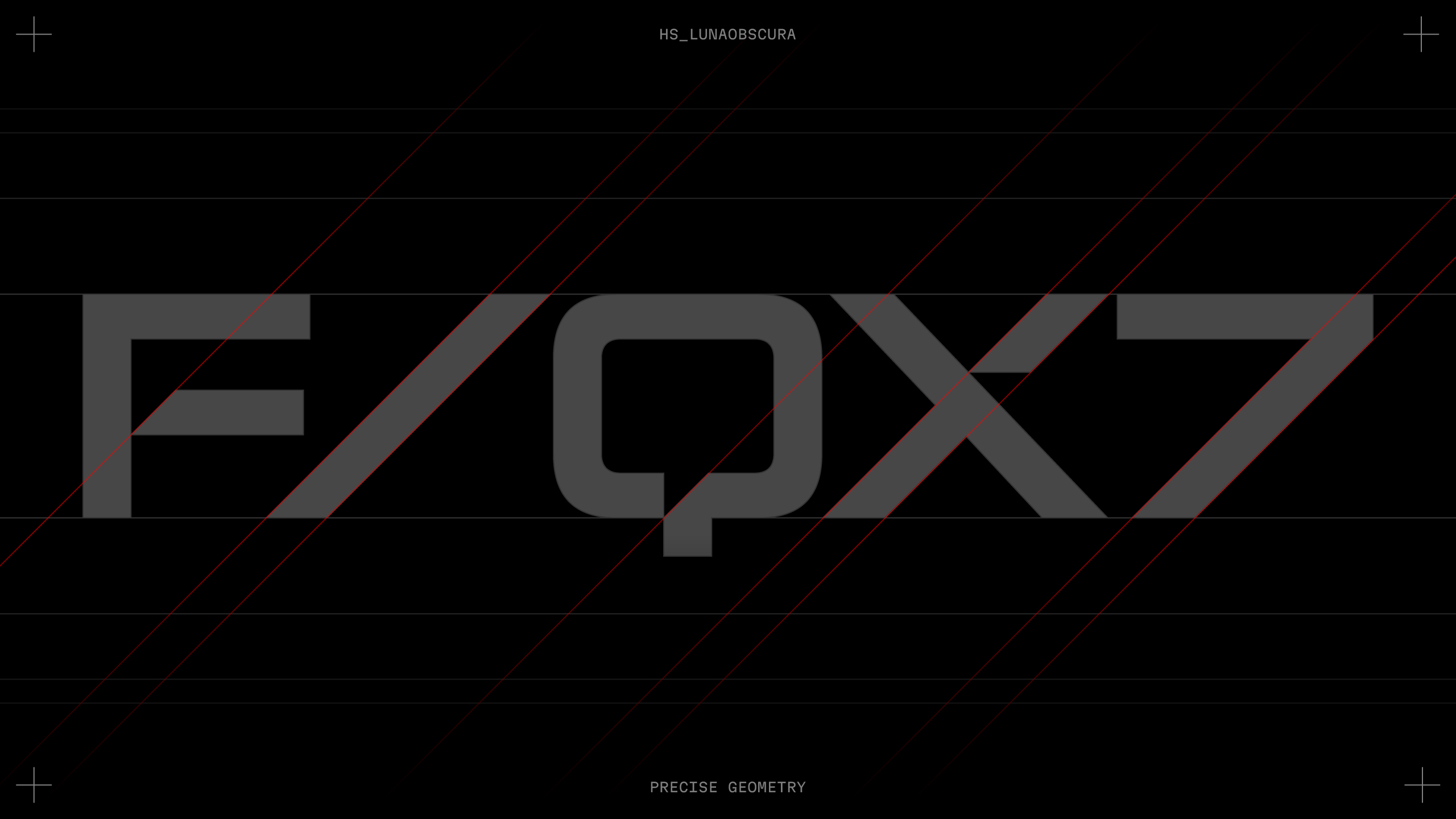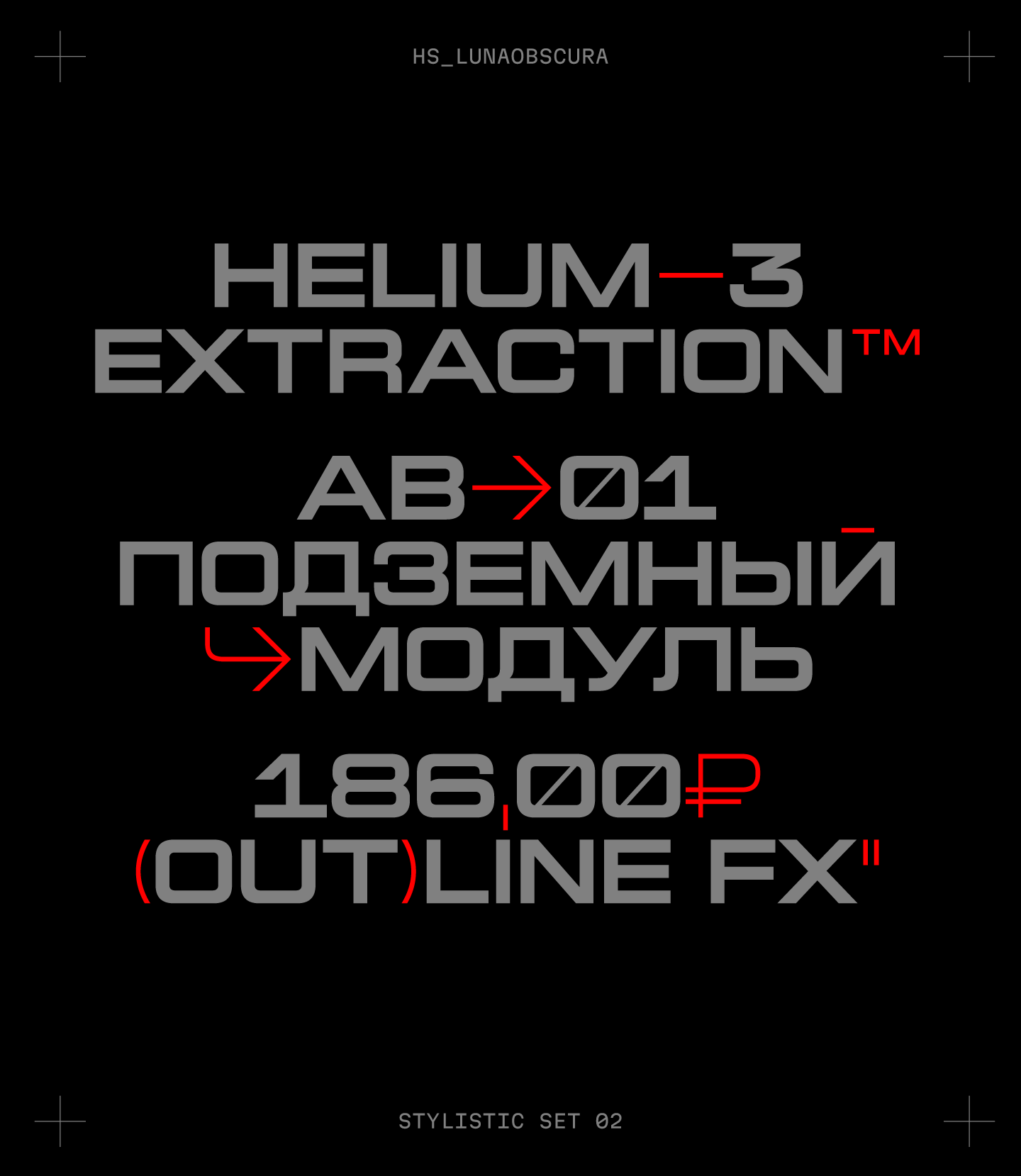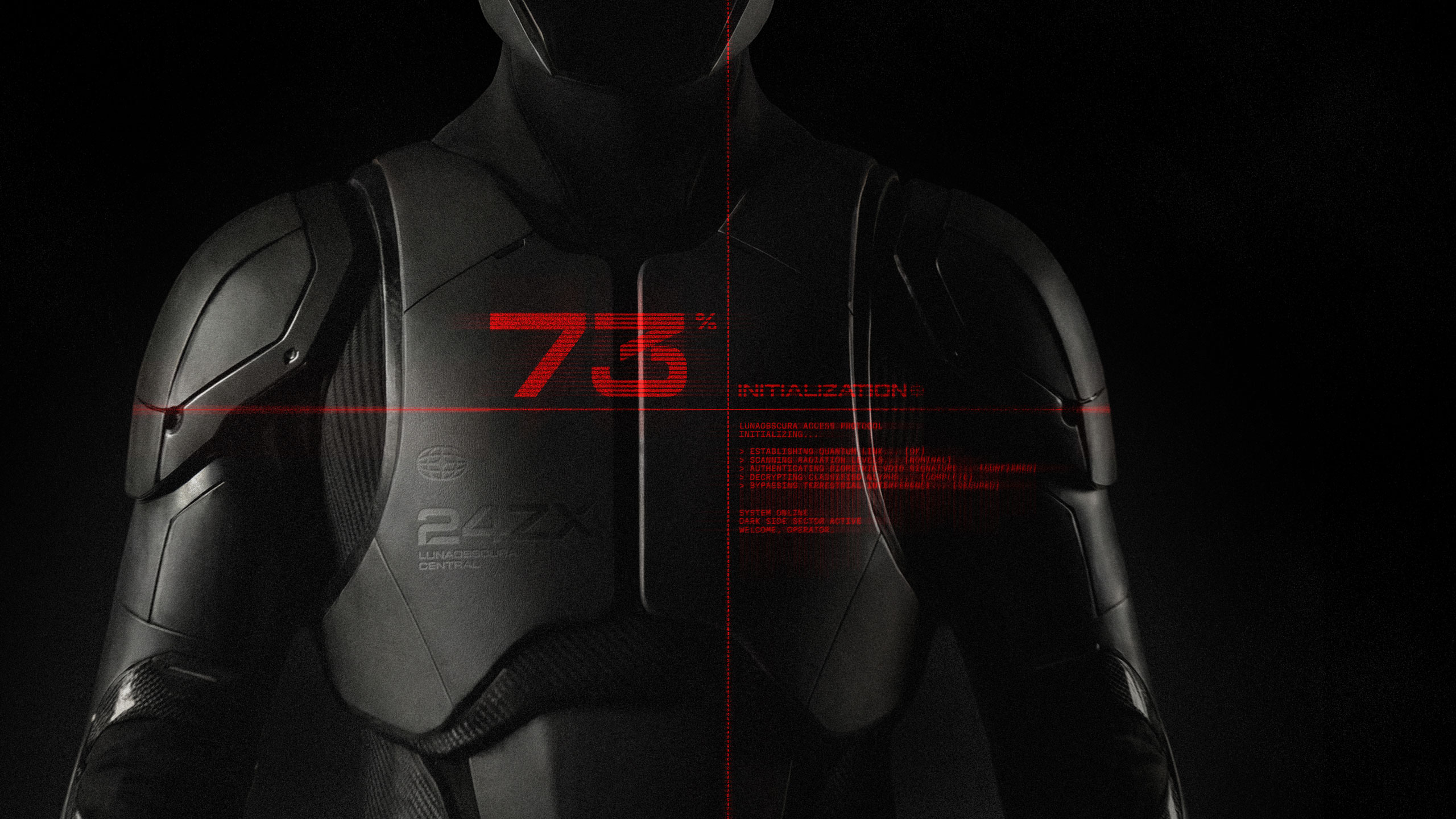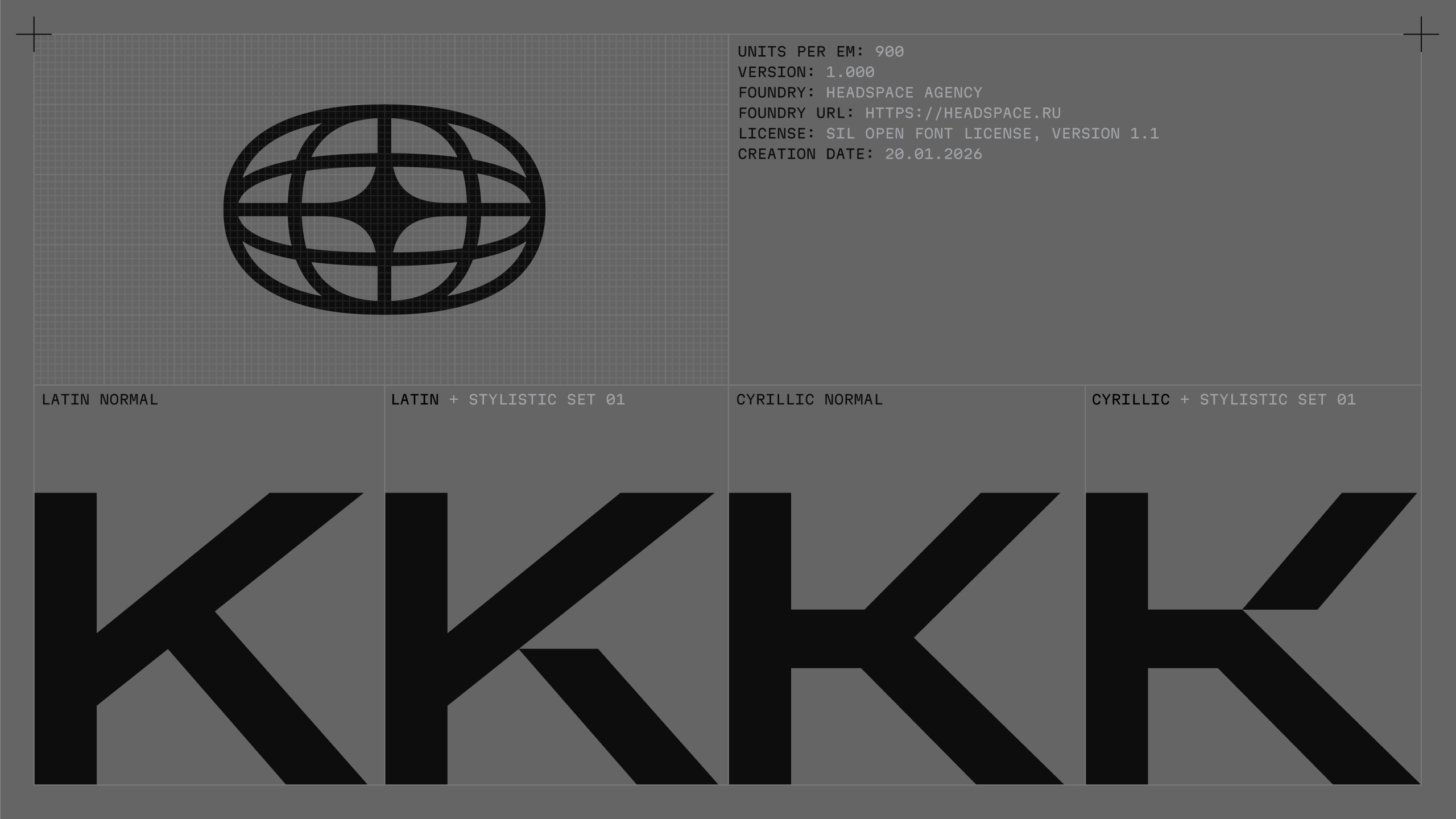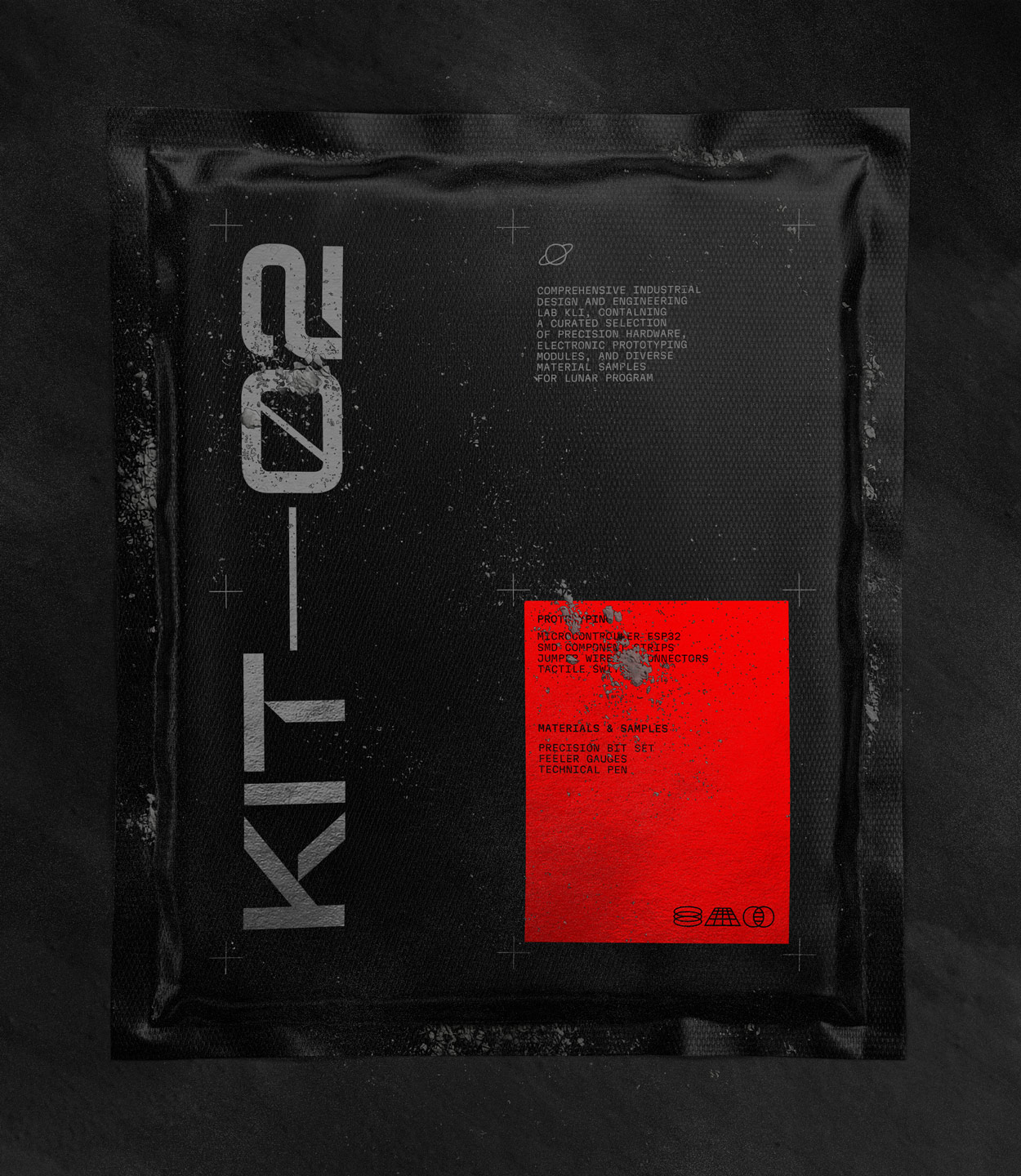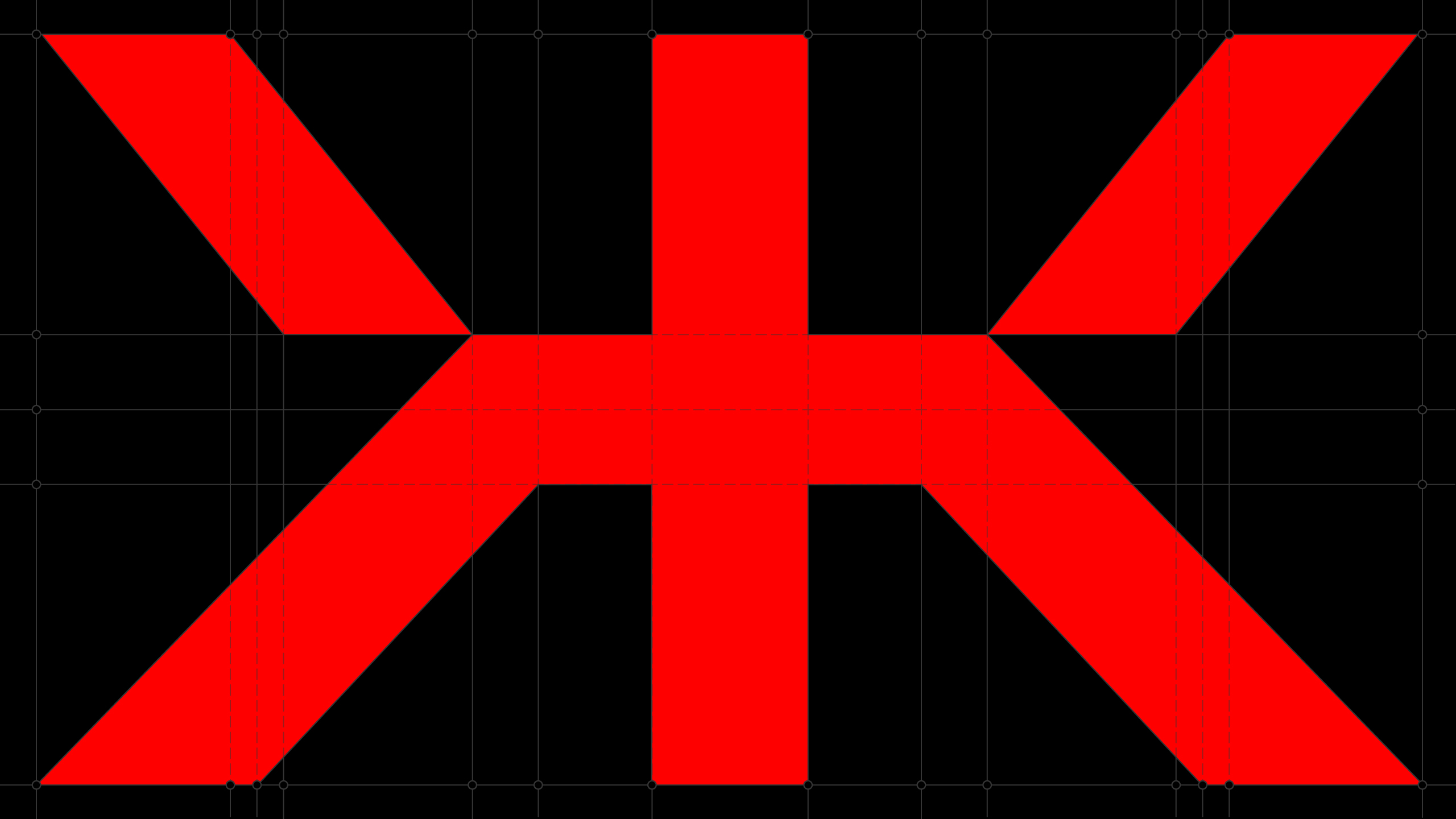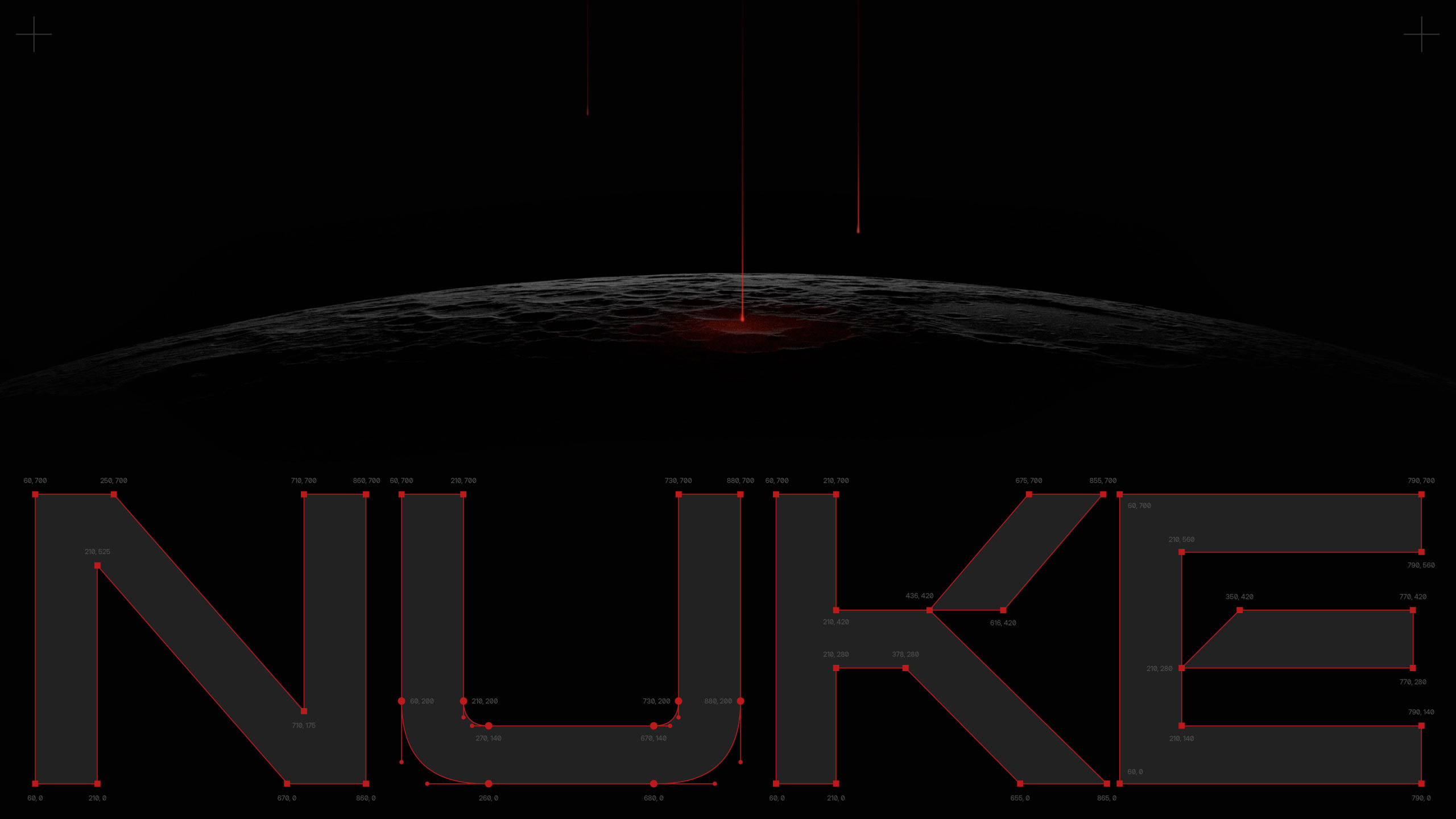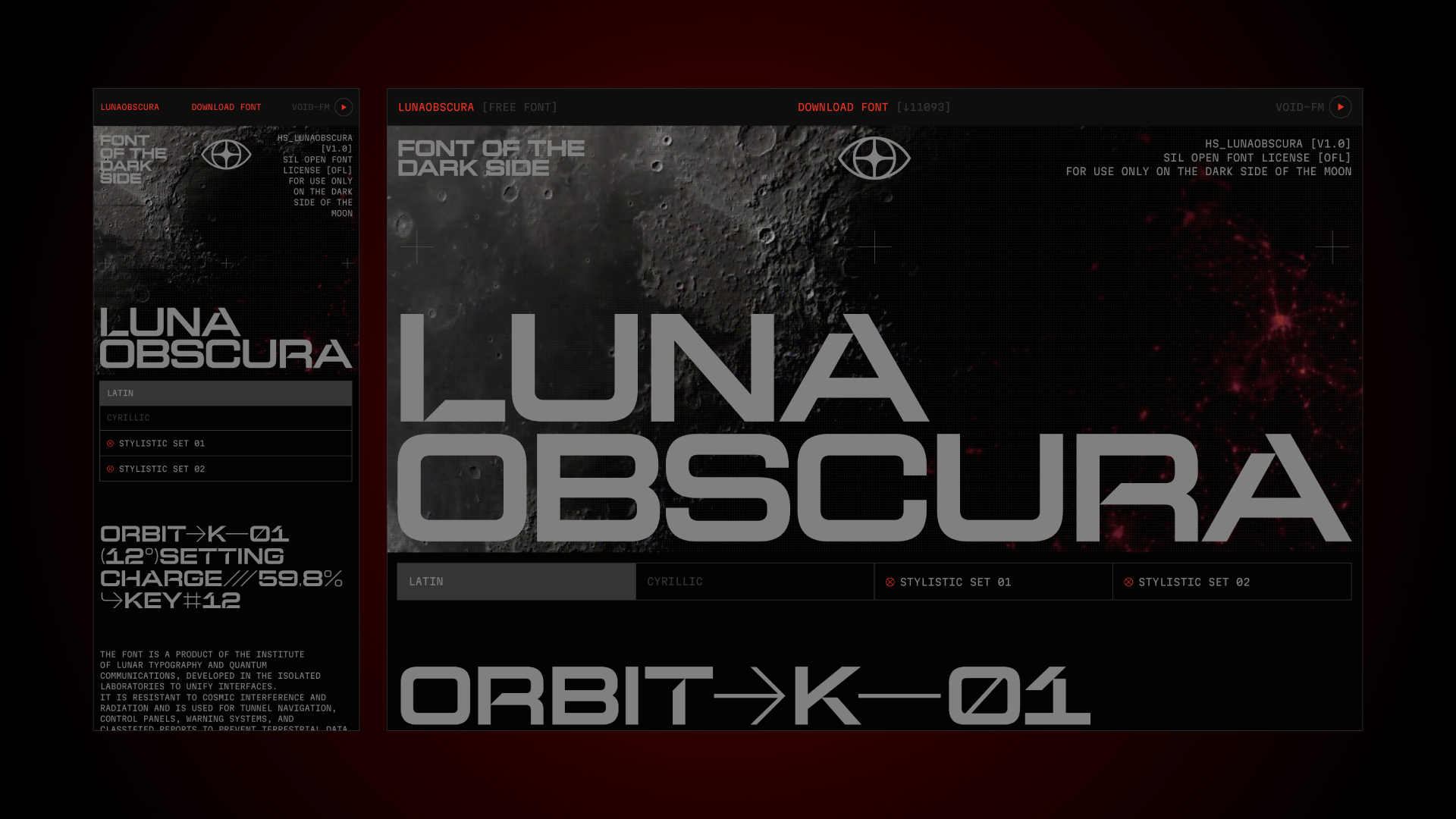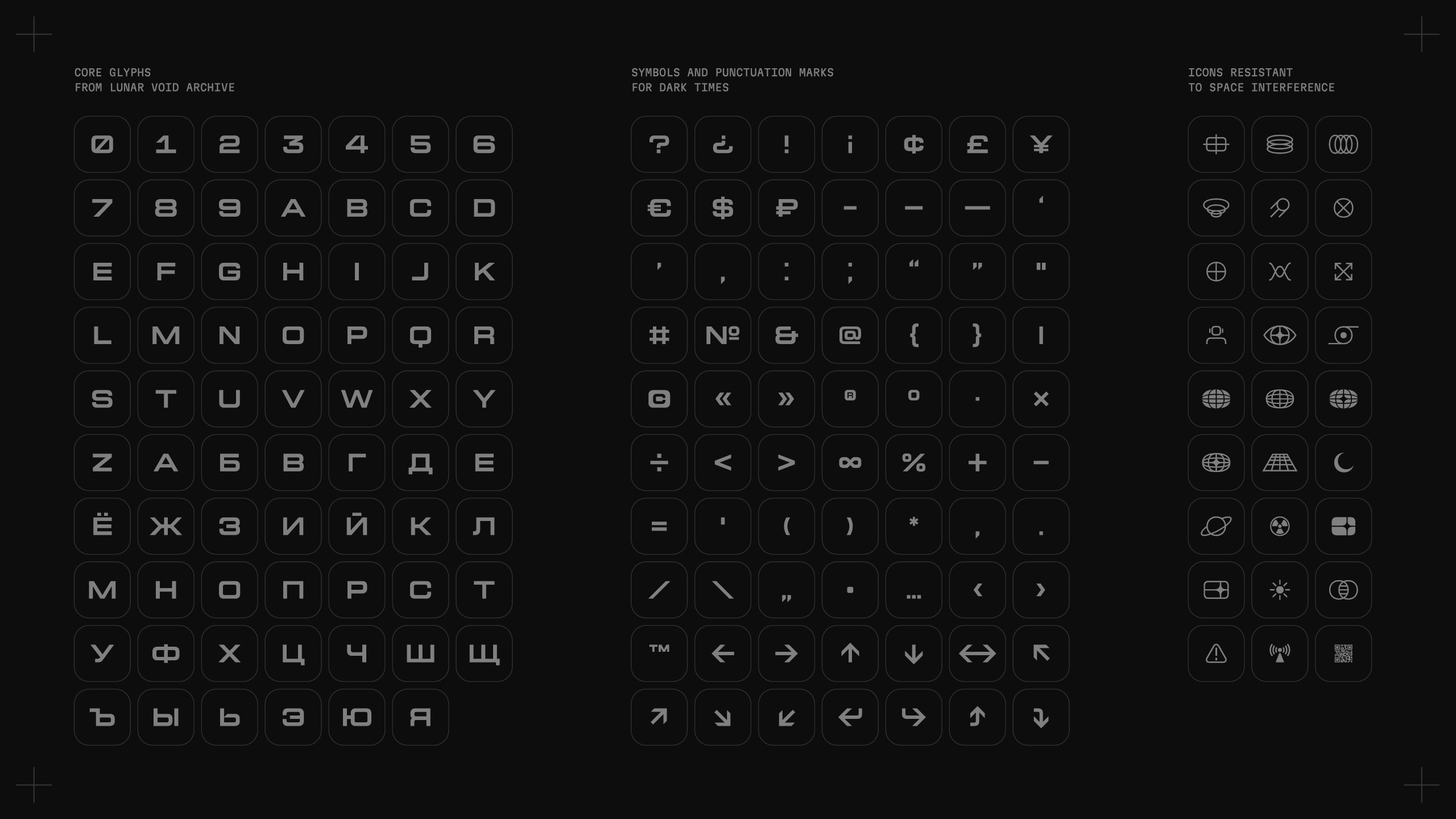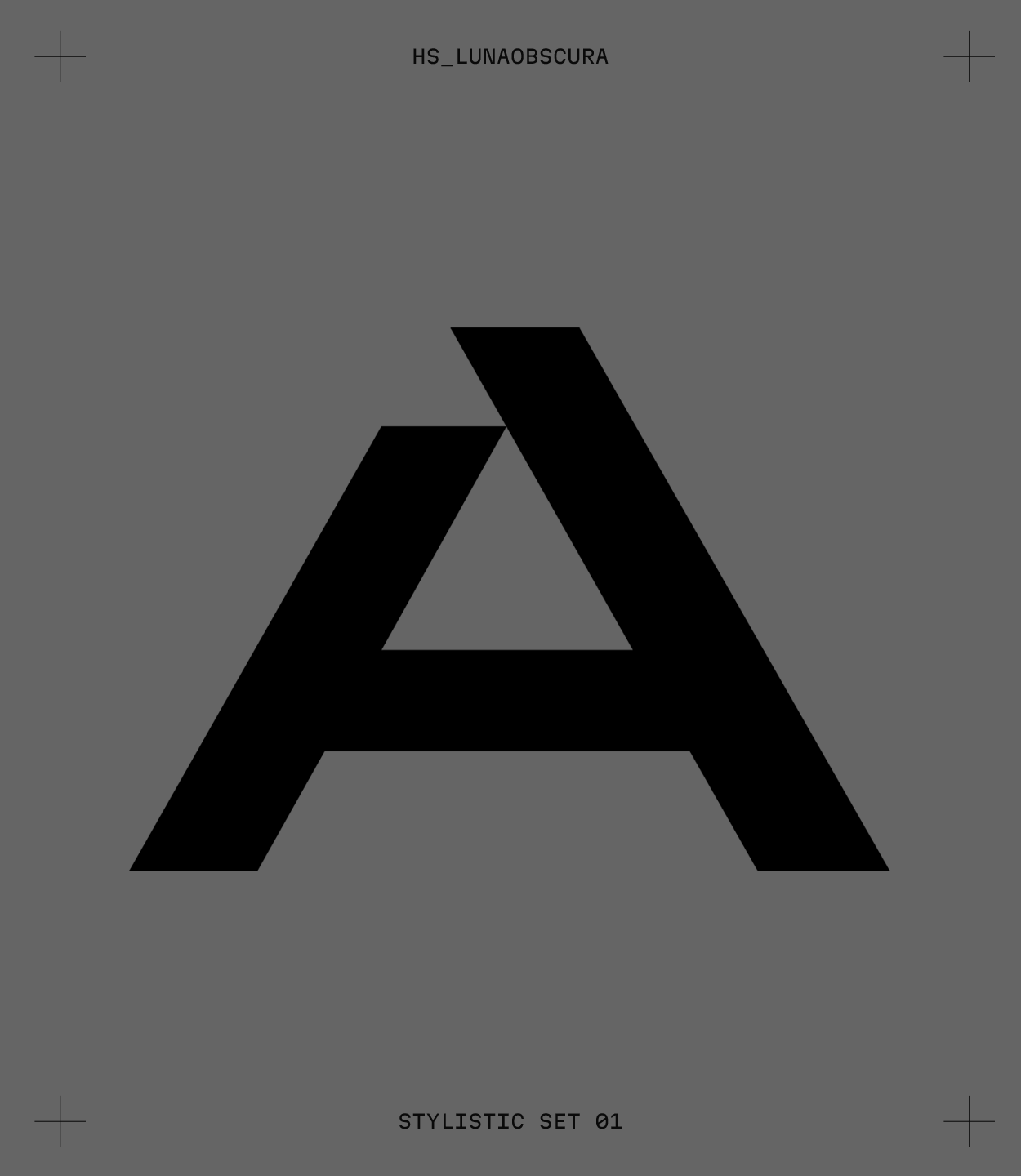
HS_LunaObscura [v1.0]
Industrial display typeface resistant to cosmic interference.
Perfect for navigation, sci-fi, dystopia, cyberpunk, UI mockups, posters.
Designer: Headspace Agency
The font includes:
— All basic characters, punctuation, arrows, mathematical symbols, and special icons
— Stylistic Set 01 / graphic serifs on letters
— Stylistic Set 02 / hairline symbols & punctuation